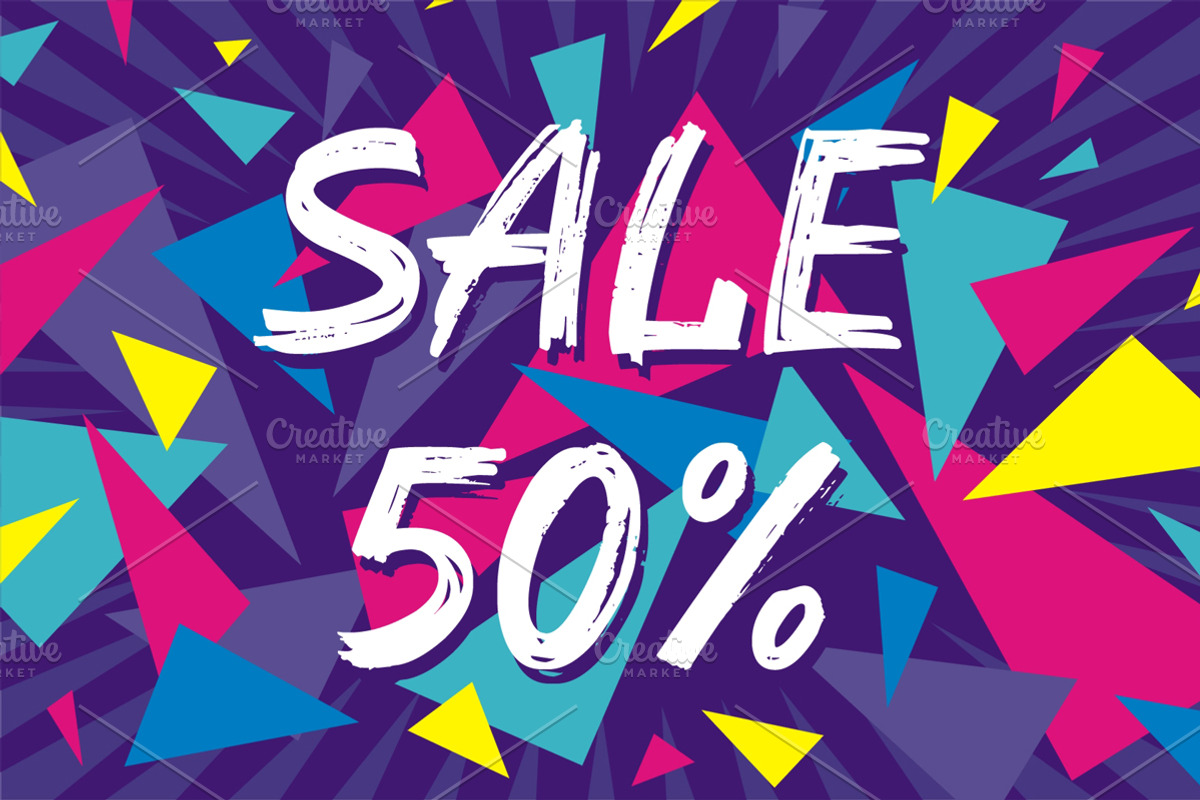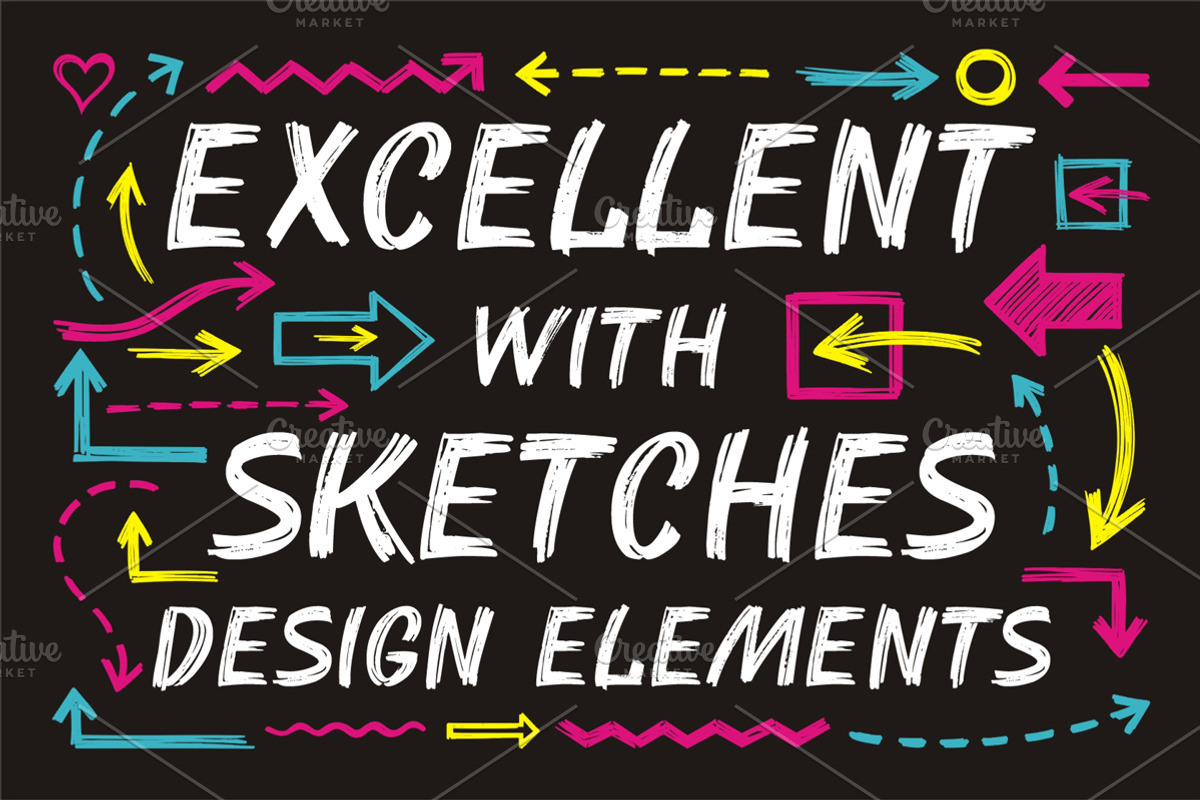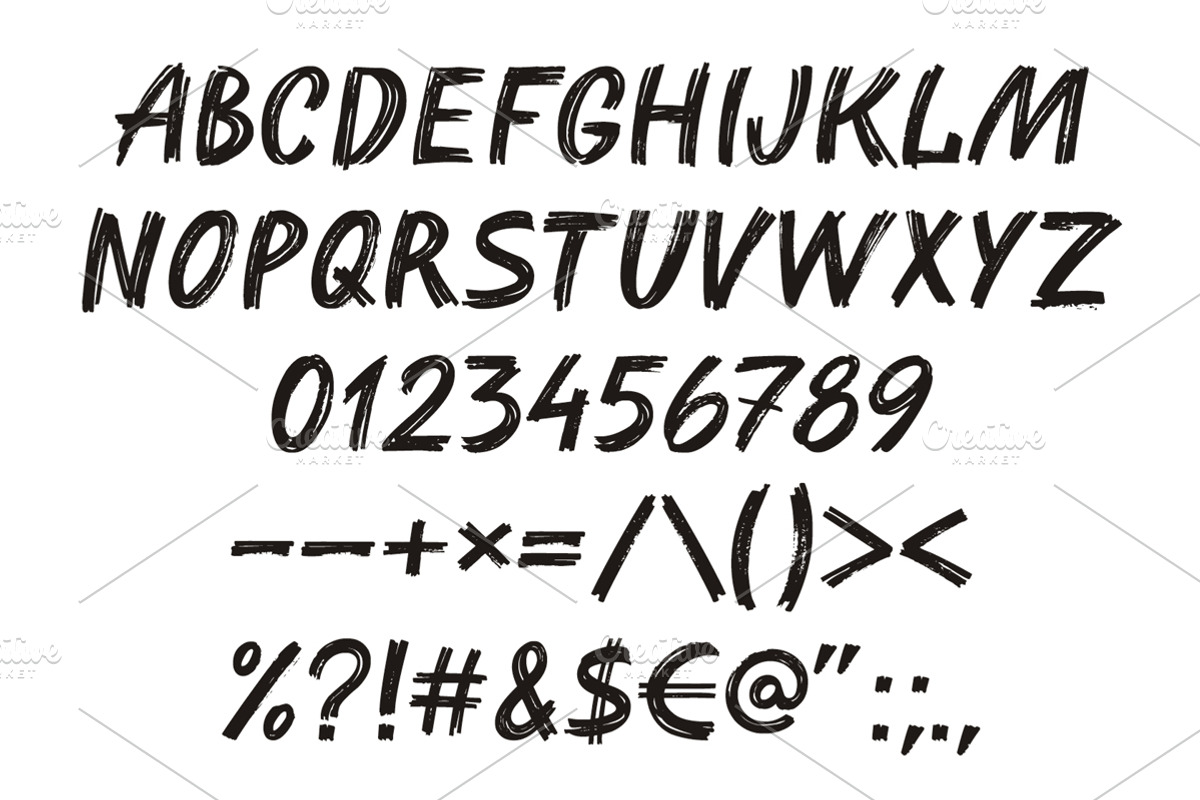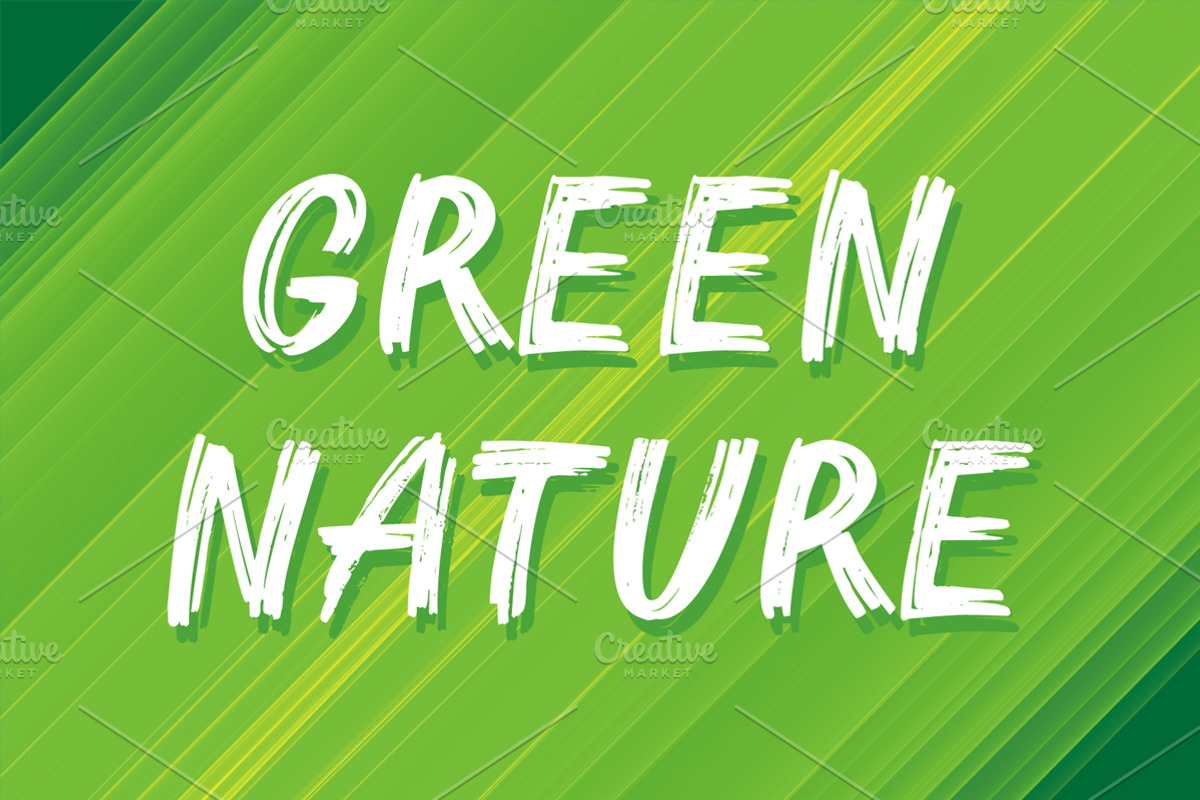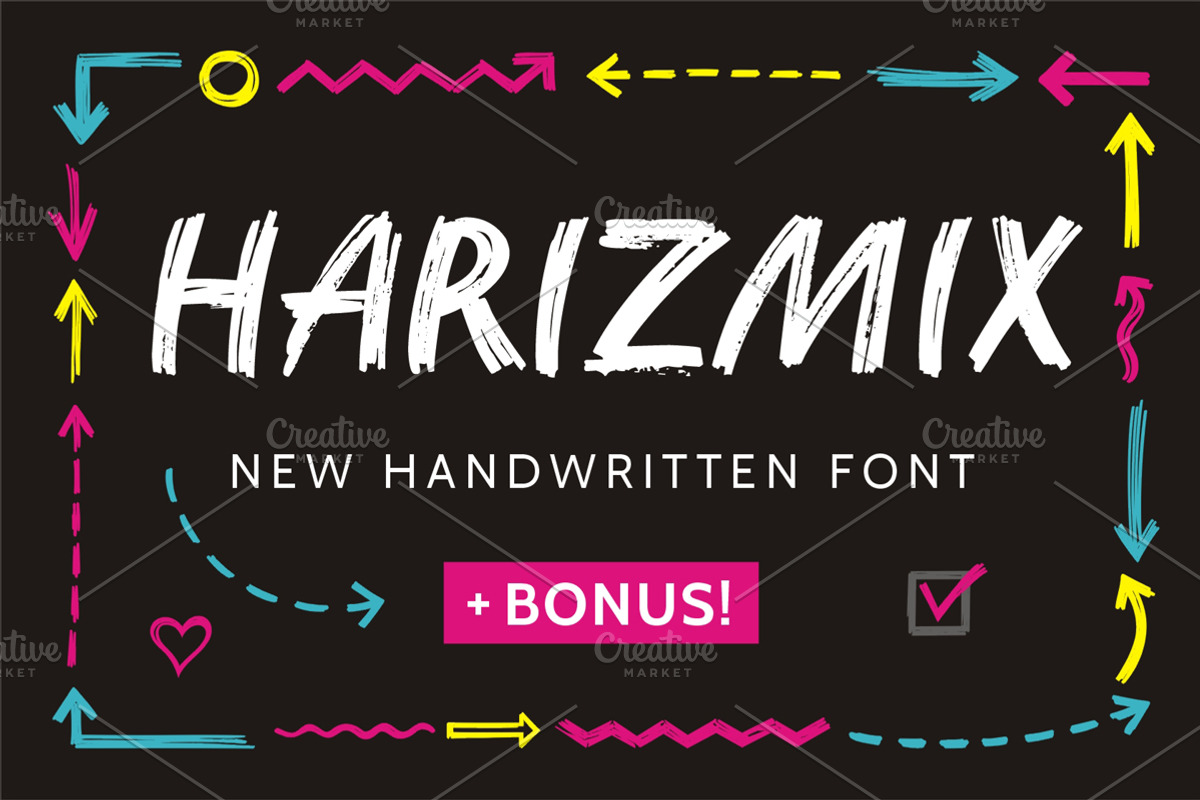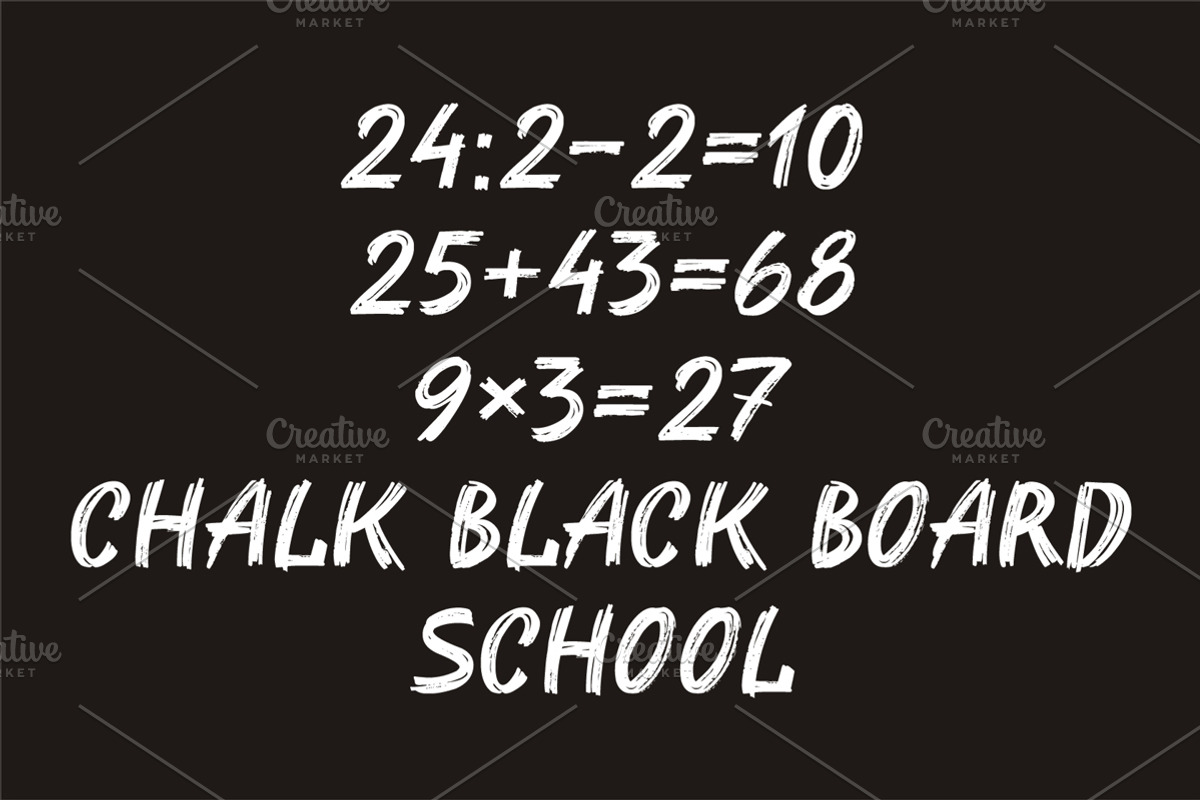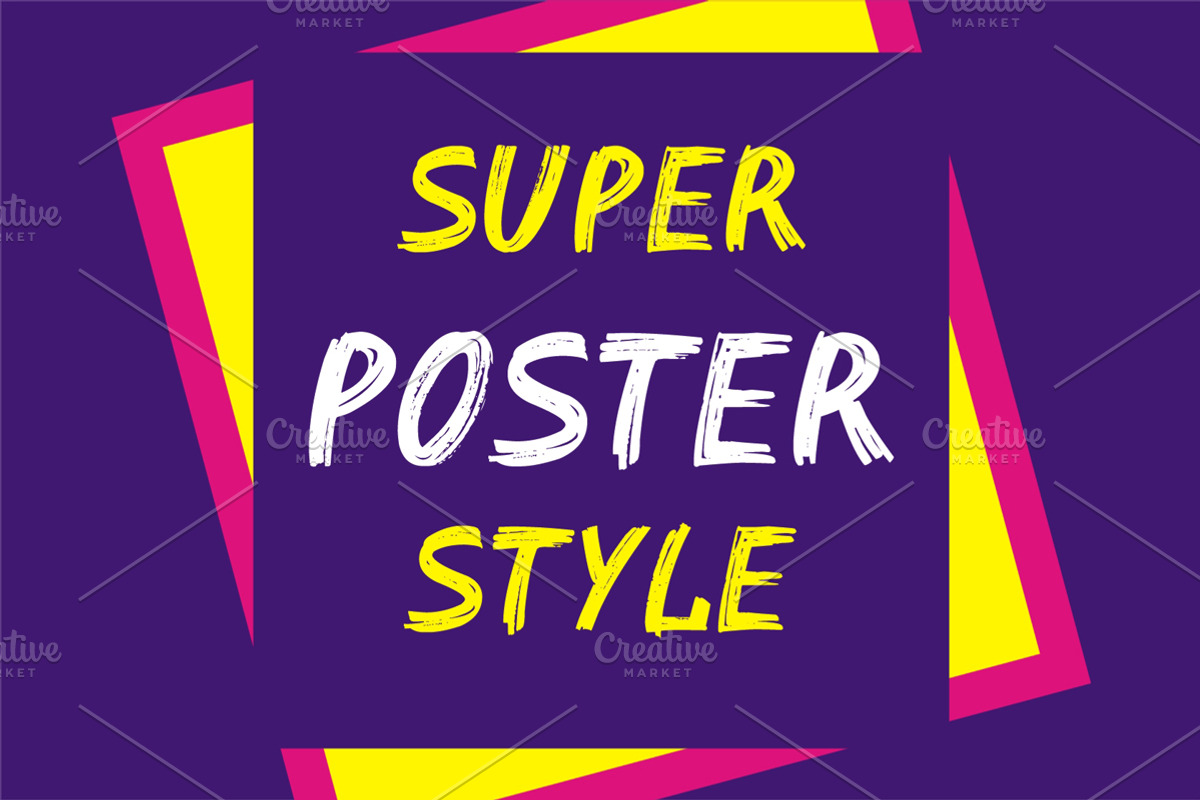
Harizmix Handwritten Marker Font
Harizmix Handwritten Marker Font by serkorkin is a font selected for branding, posters, packaging, typography.
Why Harizmix Handwritten Marker Font is worth a look
Harizmix Handwritten Marker Font by serkorkin fits naturally into Branding, posters, packaging, typography.